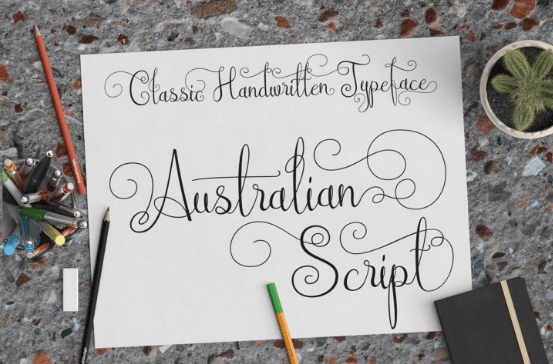
Font Frenzy: Australian Script
Australian Script is a cute and playful script, with natural and dynamically handmade touch. This font uses two alternate lowercase letters to avoid the same letter in a pair and there are hundreds of swashy characters to make your text look nice for a wedding invitation card.This font contains 811 glyphs and supports basic Latin characters and eastern Europe language.